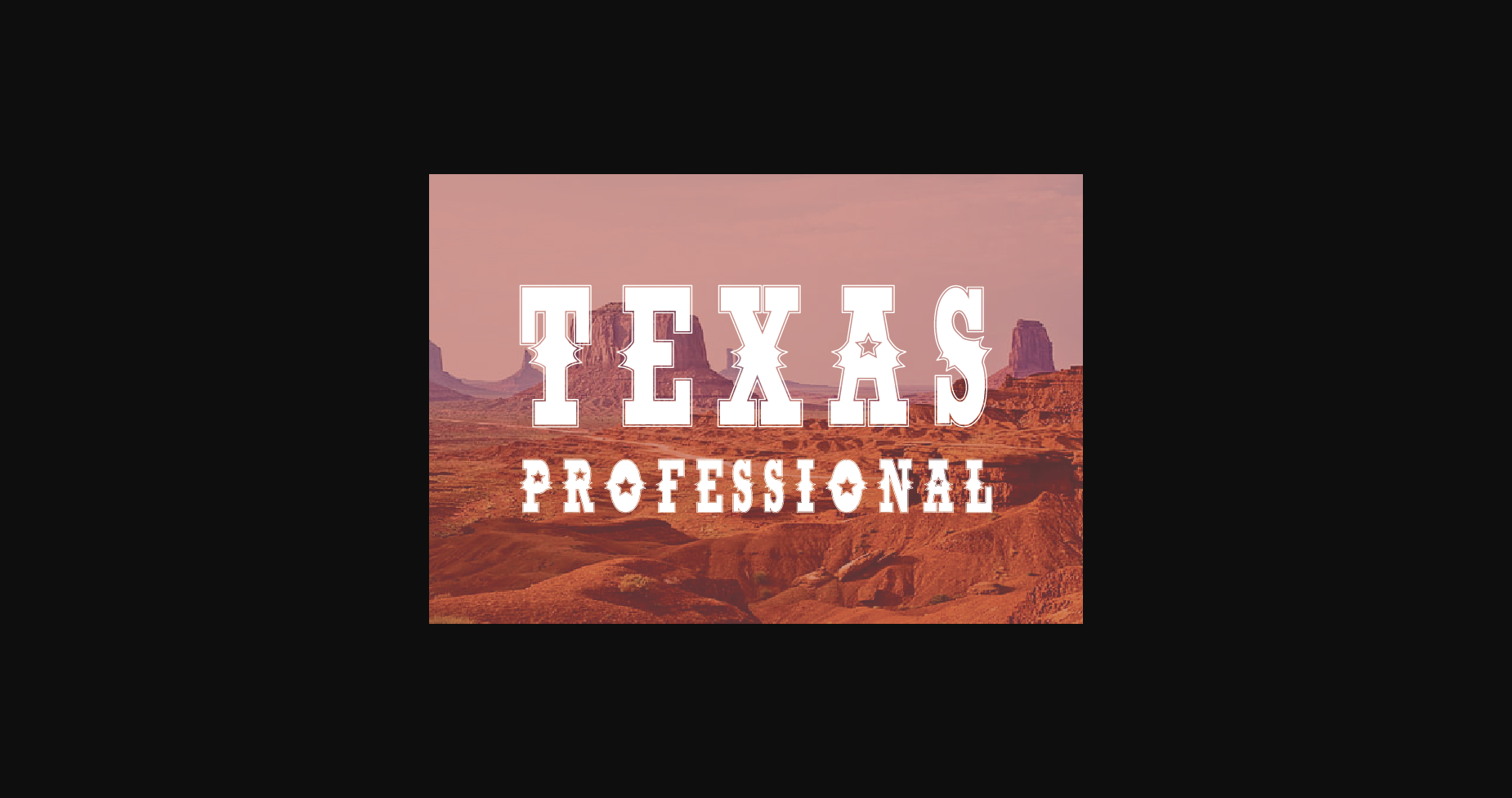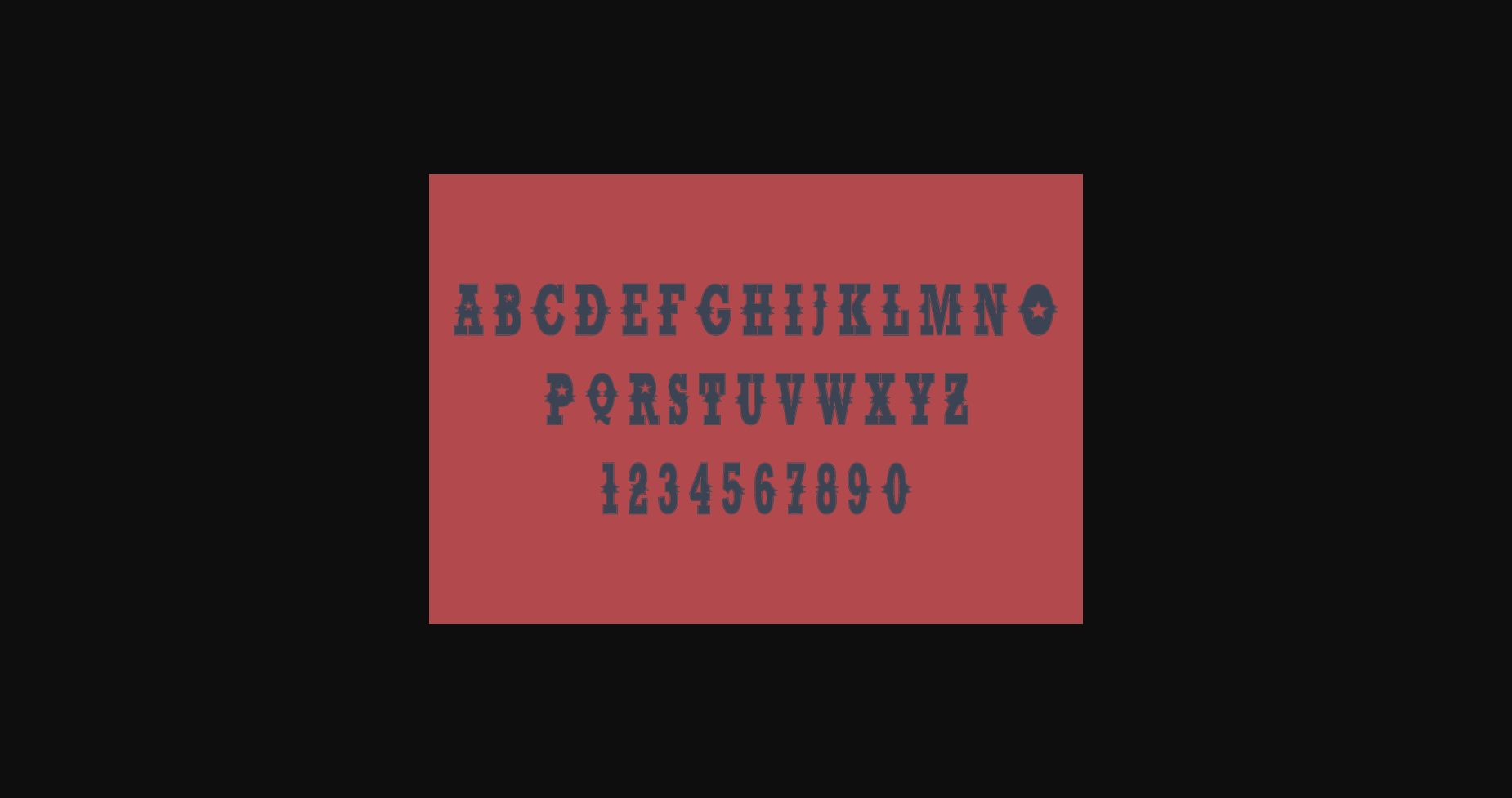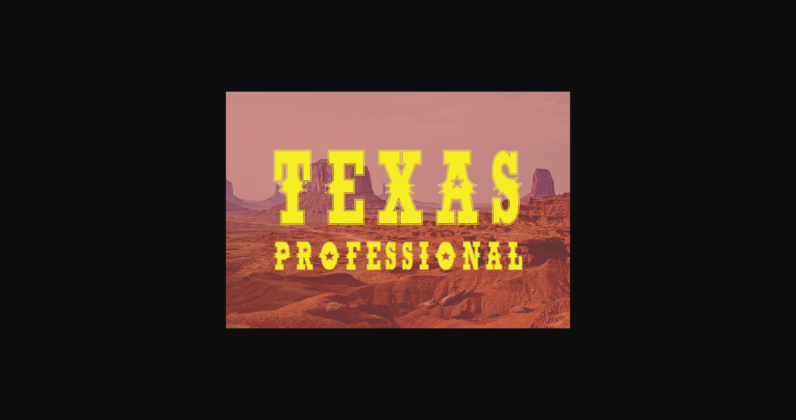
About Texas Professional Font
Texas Professional is a simple and modern sans-serif font designed for a clean and contemporary look. With its geometric shapes and balanced proportions, Texas Professional is perfect for creating a minimalist aesthetic in logos, web design, and branding.